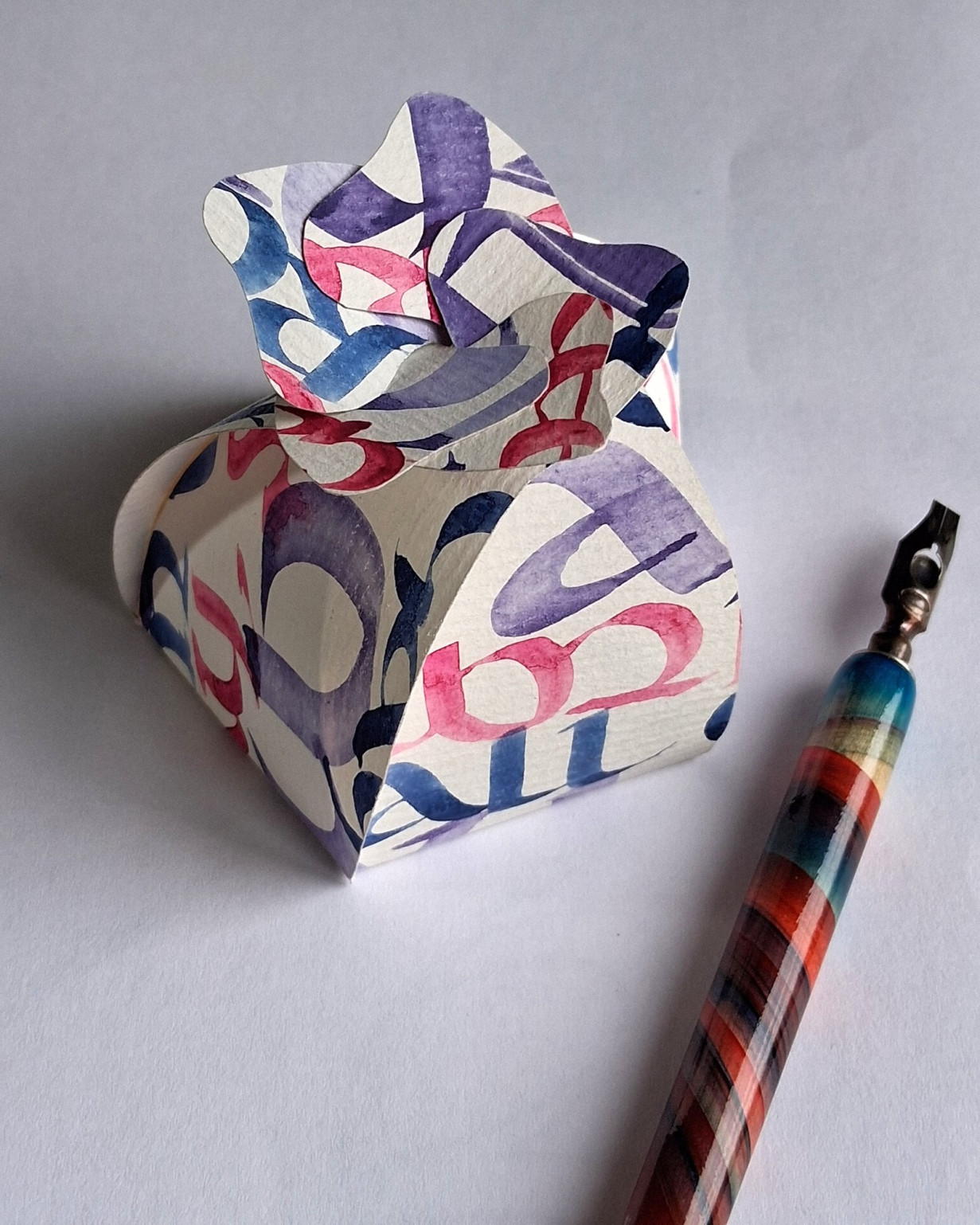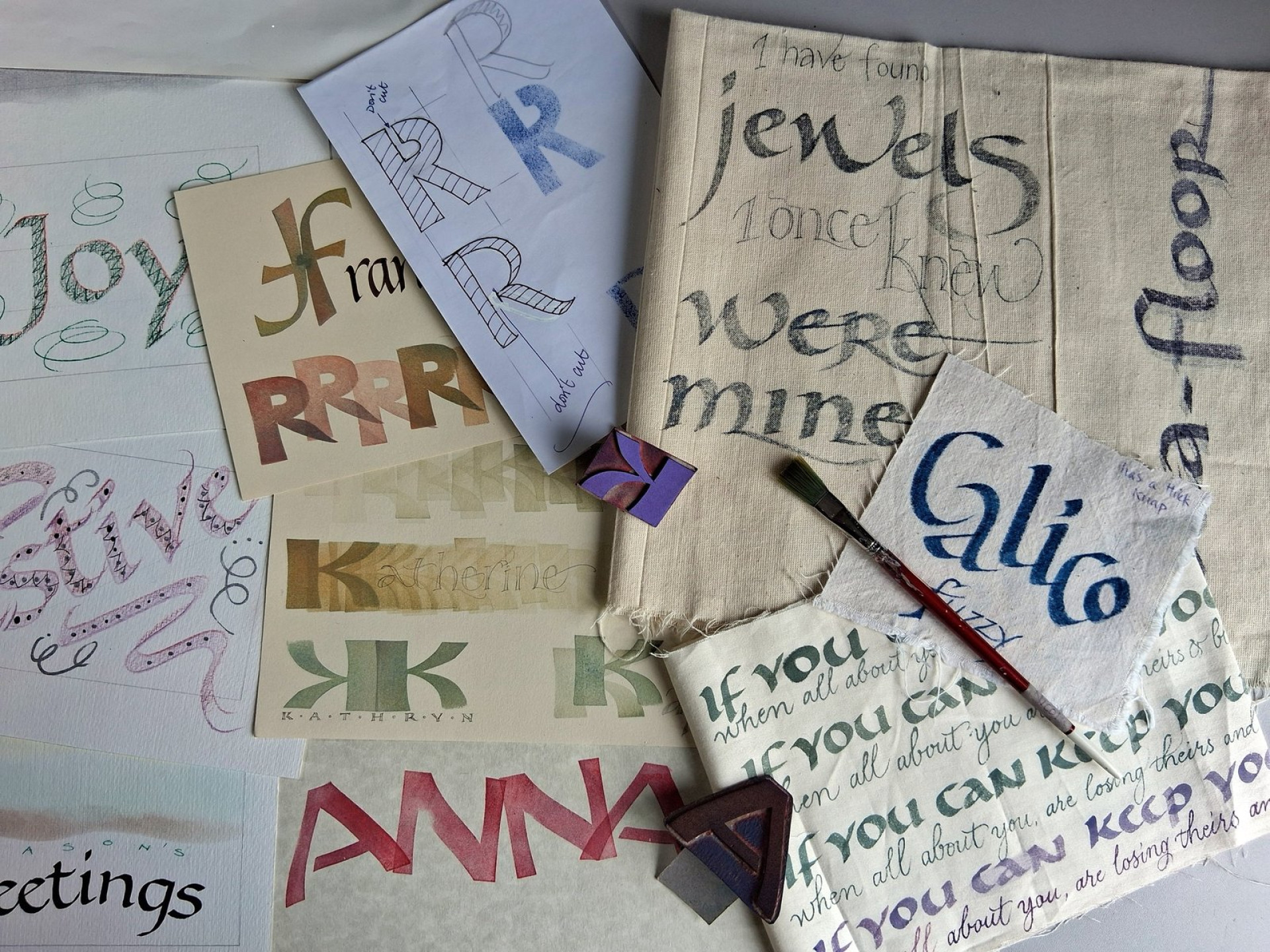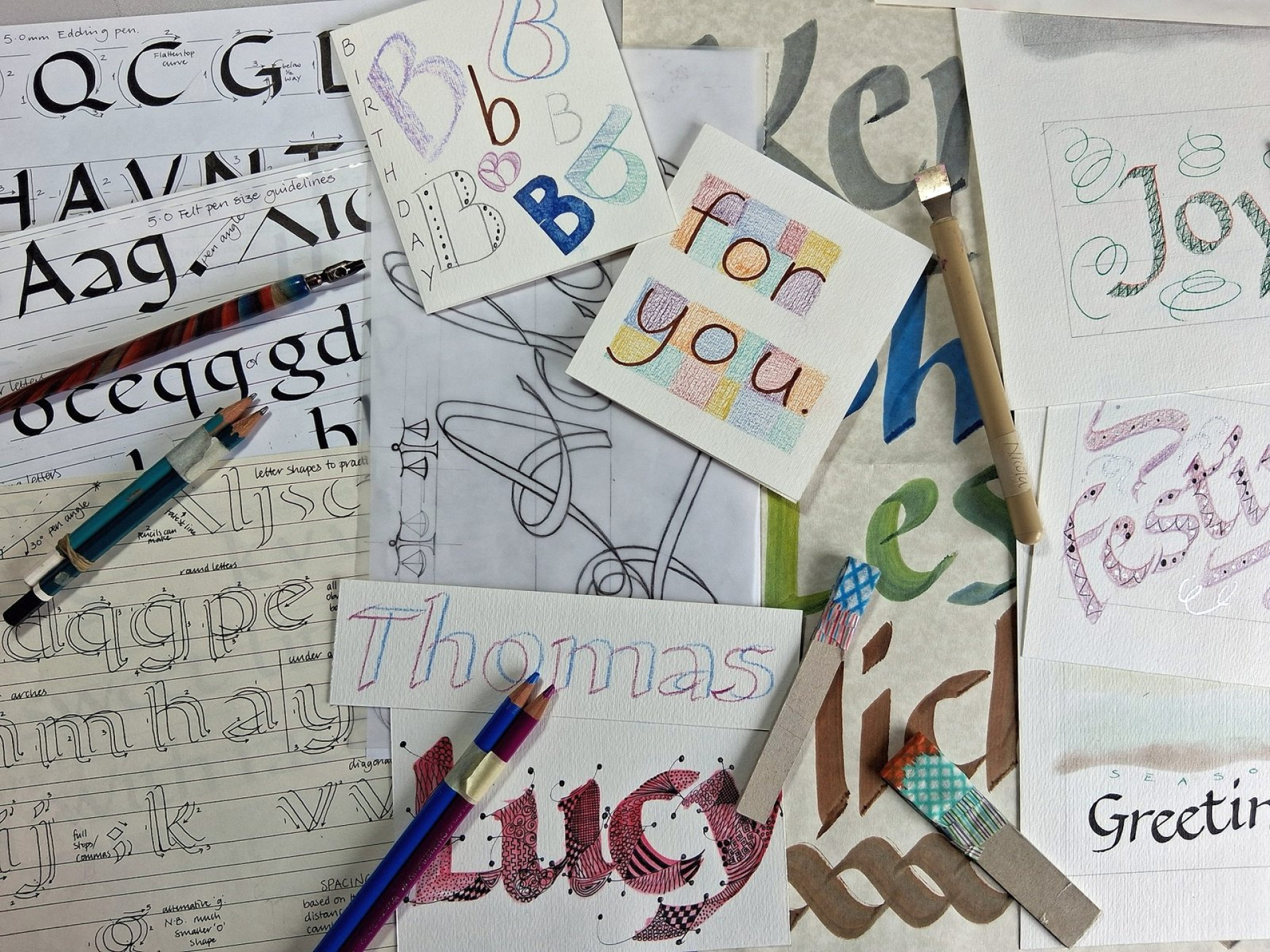
Get started, revise and create
A one day workshop - 'Get started, revise and create' - a workshop for beginners or those wishing to revise and have fun with simple creative techniques.
An introduction to calligraphy which will begin with the basics - double pencils and foundational roundhand to learn letter and alphabet structure, then when energy starts to flag, we will use simple letter forms to explore colourful and creative techniques. Enjoying the process is the best way to learn and keep practising, which hand lettering requires.
This would also suit those looking to revise an alphabet and wishing to try alternative tools apart from double pencils and broad edged nibs - such as brushes to work on fabric and 'cloth' pens - or cutting stencils and foam letters for printing with. You can even use your practice sheets to make a small folded box.
No pressure, this will be a relaxed class intended to inspire and spark ideas.